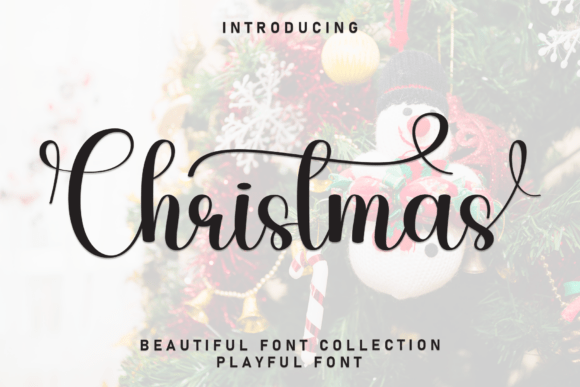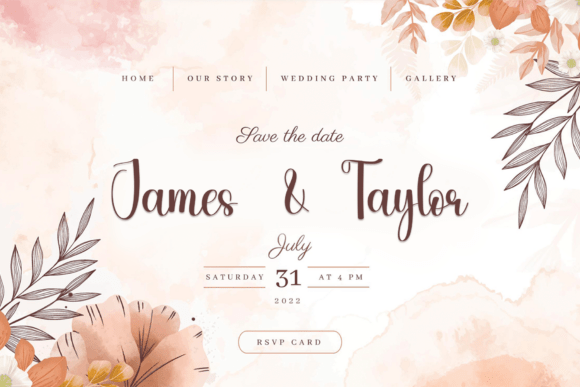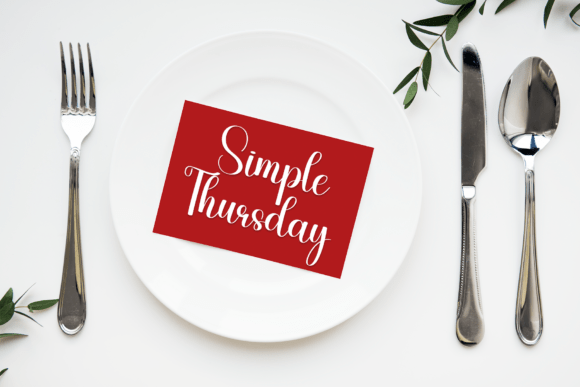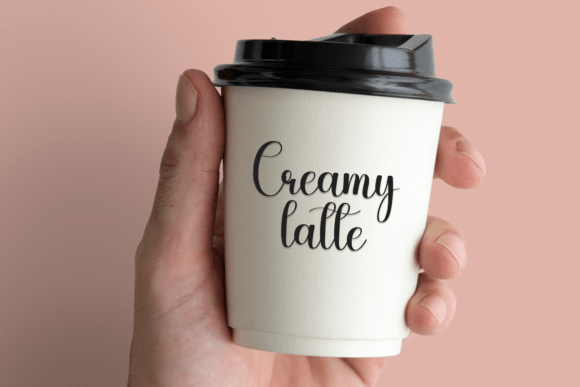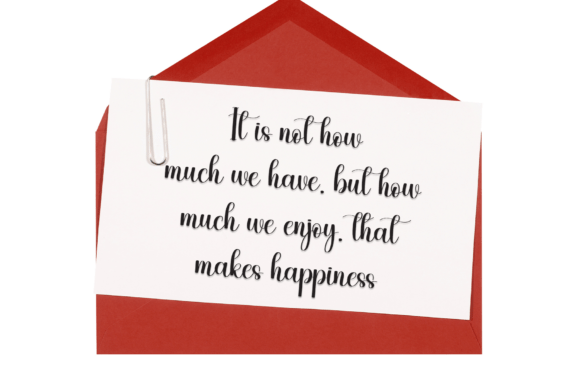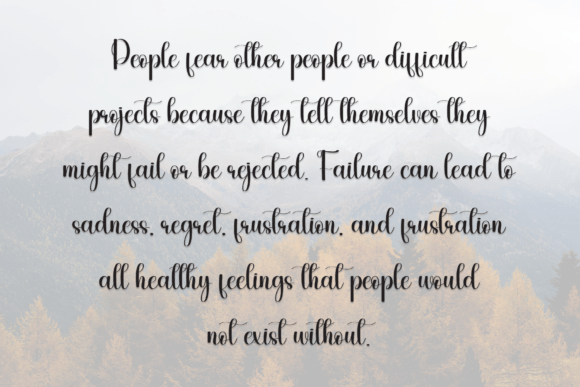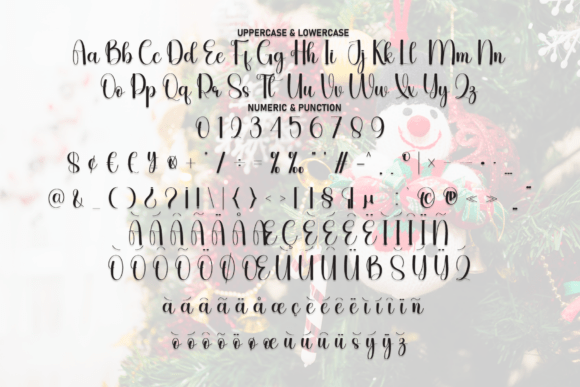
Discover the Magic of the Christmas Font
As a designer, have you ever been brainstorming ideas for a special project, and suddenly, the perfect font strikes you? It’s a feeling of pure excitement and inspiration, and that’s exactly what the Christmas Font promises to bring to your creations. This hand-scripted font is more than just a typeface – it’s a way to infuse your designs with personality and charm.
Perfect for wedding invitations, greeting cards, or any project that needs a touch of magic, the Christmas Font is a valuable addition to any designer’s toolkit. Its unique balance of whimsy and joy lends an energetic and pleasant aura to your projects, effortlessly connecting with your audience on a personal level. Whether you’re creating a holiday-themed design or just want to add some festive flair, the Christmas Font is sure to bring a smile to your face and delight your clients.
Key Features of Christmas Font
- Unique Characteristics: The Christmas Font features a festive, hand-drawn design with intricate details and ornaments, perfect for adding a touch of holiday cheer to any design project.
Designer Review: Christmas Font
Overall, I’d say the Christmas Font is a decent option for holiday-themed projects, but it has its limitations.
- ✨ The font is festive and fun, perfect for capturing the spirit of the holiday season.
- ✨ The bold weight is great for titles and headings, making it easy to draw attention.
- ✨ The font is highly customizable, allowing you to adjust the size, color, and spacing to fit your design.
- ⚠️ The font is not suitable for body text, as it can be quite busy and difficult to read.
- ⚠️ The font lacks consistency in its letterforms, which can make it look less polished in certain applications.
- ⚠️ The font is not available in as many languages as I’d like, which can be a limitation for global designs.
Overall, I’d recommend using the Christmas Font for specific design elements, such as titles, headings, and decorative text, but not for body text or large blocks of text.
Tips for Getting the Most Out of Christmas Font
Use Christmas font to add a festive touch to your designs, especially during the holiday season.
– Pair it with bold colors and patterns to create a fun and playful atmosphere.
– Use it for titles, headings, and short paragraphs to add emphasis.
– Experiment with different font sizes and styles to create visual interest.
Use Christmas font for:
– Holiday cards and invitations
– Party decorations and signs
– Gift tags and wrapping paper
Alternatives to “Christmas Font” for Designers
Great Vibes is a beautiful, elegant script font that is perfect for creating a festive atmosphere without being too “Christmas-y”. It’s ideal for invitations, greeting cards, and other holiday-related designs where you want to evoke a sense of joy and celebration. Compared to Christmas Font, Great Vibes is more versatile and can be used throughout the year, not just during the holidays.
Carolyna Pro is a modern, sophisticated font that combines elegant lines with a touch of whimsy. It’s perfect for creating a luxurious and sophisticated holiday look, and can be used for high-end invitations, branding, and packaging. Compared to Christmas Font, Carolyna Pro is more polished and refined, making it a great choice for designers who want to create a high-end holiday look.